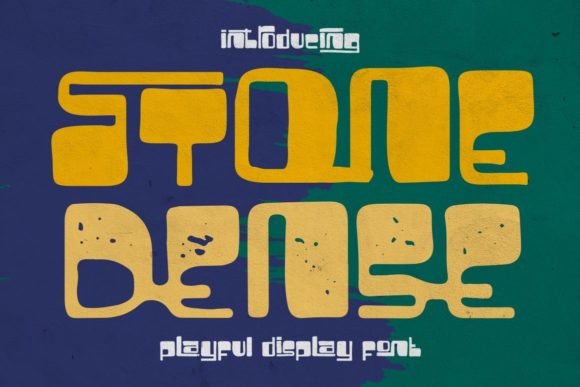
Journey into the world of Stone Dense, a playful and fun display font, crafted by the talented putracetol. This whimsical and enchanting font will ignite your creativity and add a touch of magic to your designs.
Imagine embarking on an adventure with Stone Dense, where words dance and stories come alive. Its playful curves and quirky characters will captivate your audience, leaving them spellbound. Whether you're crafting a children's book cover, designing a whimsical poster, or creating an eye-catching logo, Stone Dense will be your steadfast companion.
With Stone Dense, you'll discover a font that's as versatile as it is charming. Its vibrant personality shines through in every letter, bringing life to your projects. Unleash your imagination and let Stone Dense guide you on a creative journey like no other.
Stone Dense is more than just a font; it's an invitation to let your creativity soar. Its PUA encoding makes accessing all the glyphs and ligatures a breeze, giving you the freedom to explore your artistic vision without limits. Embrace the magic of Stone Dense and unlock a world of endless possibilities.
Don't settle for ordinary fonts. Embrace the extraordinary with Stone Dense, the font that will transform your designs into captivating masterpieces. Let your imagination run wild and embark on a creative adventure that will leave you breathless. Make Stone Dense your font of choice and unlock the secrets of a truly enchanting world.